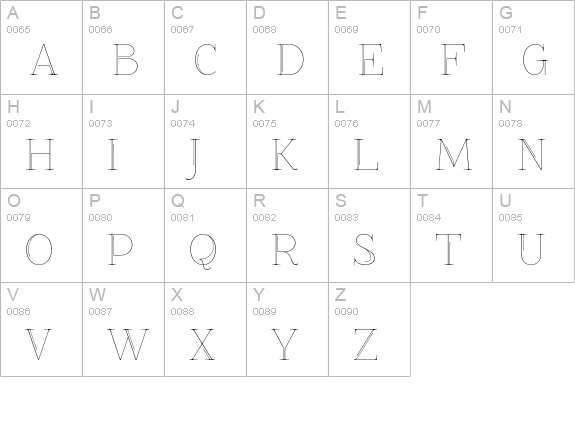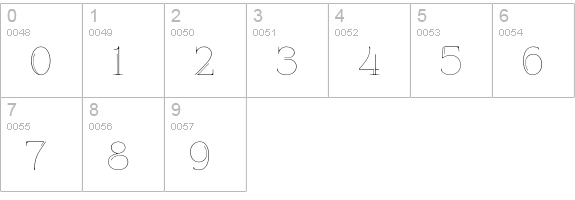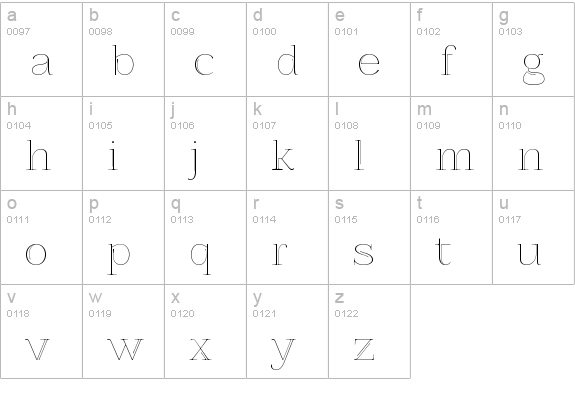
ZnikomitNo25 Font Details
ZnikomitNo25 is a remarkable font that captivates the eye with its unique and modern design. This font effortlessly combines elegance with a touch of playfulness, making it perfect for a wide range of creative projects. With its clean lines and well-defined curves, ZnikomitNo25 makes a bold statement while maintaining readability. Each letter has been meticulously crafted to ensure that every word stands out and leaves a lasting impression on the reader. What sets ZnikomitNo25 apart is not only its stunning aesthetics but also the fact that it is freely available to download at FontsMarket.com. This means that anyone can access this exceptional font and use it in their personal or commercial projects without any restrictions. Whether you are designing a logo, creating a poster, or crafting a website, ZnikomitNo25 will undoubtedly elevate your work to new heights. Its versatility allows it to effortlessly adapt to any design style, making it a go-to choice for designers and creatives alike. Furthermore, ZnikomitNo25 offers a wide range of glyphs and ligatures, providing endless possibilities for customization and creativity. This font allows you to add your personal touch and make your designs truly unique. In addition to its visual appeal, ZnikomitNo25 is also highly legible, ensuring that your message is conveyed with clarity and precision. Its balanced letterforms and generous spacing make it easy on the eyes, whether it is used in headlines, body text, or captions. In conclusion, ZnikomitNo25 is a free font that effortlessly combines elegance, modernity, and playfulness. Its stunning design, versatility, and legibility make it an exceptional choice for any creative project. Download ZnikomitNo25 today at FontsMarket.com and elevate your designs to the next level.